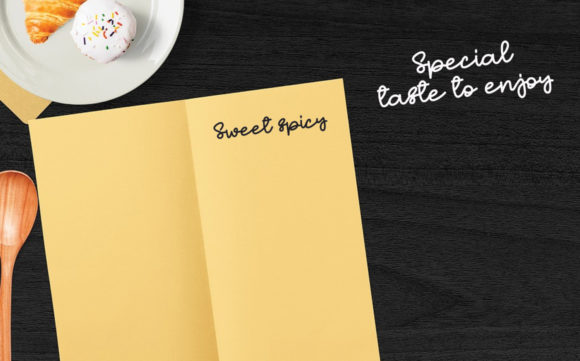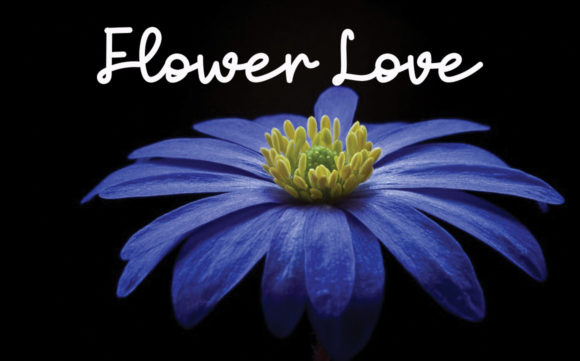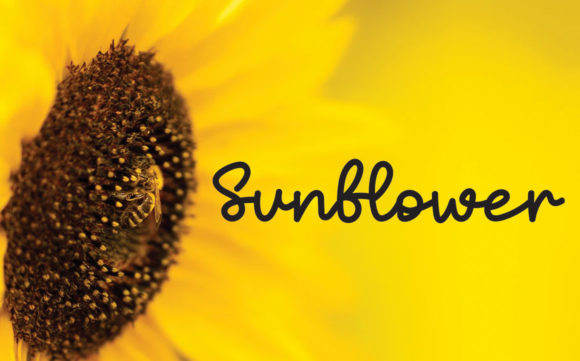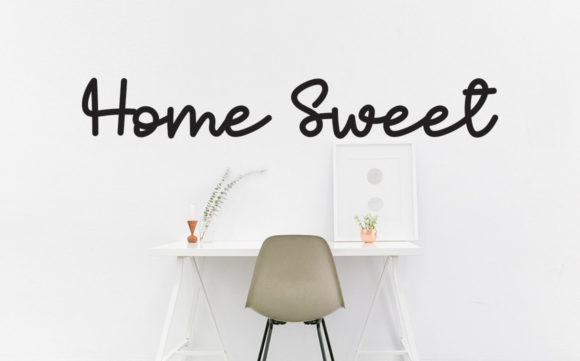
Introducing Buttermilk Font: A Sweet and Cursive Handwritten Delight
Are you a designer or crafter looking for a font that can add a touch of joy and romance to your projects? Look no further than the Buttermilk Font! This beautiful, sweet, and cursive handwritten font is perfect for a variety of design ideas and is sure to make your work stand out.
What is Buttermilk Font?
Buttermilk Font is a unique and elegant handwritten font that is designed to bring a sense of warmth and personality to your designs. Its gentle and flowing curves make it perfect for creating beautiful and eye-catching text-based designs. Whether you’re working on a wedding invitation, a branding project, or a social media graphic, Buttermilk Font is sure to impress.
Key Features of Buttermilk Font
- Sweet and Cursive: Buttermilk Font features a beautiful, cursive script that is both sweet and elegant.
- Handwritten: This font is designed to look like it was written by hand, giving it a personal and unique touch.
- Versatile: Buttermilk Font can be used on a variety of design projects, from wedding invitations to branding and social media graphics.
- Easy to Read: Despite its cursive nature, Buttermilk Font is easy to read and understand, making it perfect for body text and headings.
Design Ideas Using Buttermilk Font
Buttermilk Font is a versatile font that can be used on a wide range of design projects. Here are a few ideas to get you started:
- Wedding Invitations: Add a touch of romance and elegance to your wedding invitations with Buttermilk Font.
- Branding: Use Buttermilk Font to create a unique and memorable brand identity for your business.
- Social Media Graphics: Add a personal touch to your social media graphics with Buttermilk Font.
- Stationery: Create beautiful and eye-catching stationery with Buttermilk Font.
- Signage: Use Buttermilk Font to create eye-catching signage for your business or event.
Tips for Using Buttermilk Font
Here are a few tips for getting the most out of Buttermilk Font:
- Use it with a contrasting font: Pair Buttermilk Font with a bold and modern font to create a striking contrast.
- Experiment with colors: Buttermilk Font looks great in a variety of colors, so don’t be afraid to experiment and find the perfect hue for your design.
- Pay attention to spacing: Make sure to adjust the spacing between letters and words to create a clean and easy-to-read design.
In conclusion, Buttermilk Font is a beautiful and versatile handwritten font that is perfect for designers and crafters looking to add a touch of joy and romance to their projects. With its sweet and cursive curves, this font is sure to make your work stand out. Whether you’re working on a wedding invitation, branding project, or social media graphic, Buttermilk Font is a great choice.